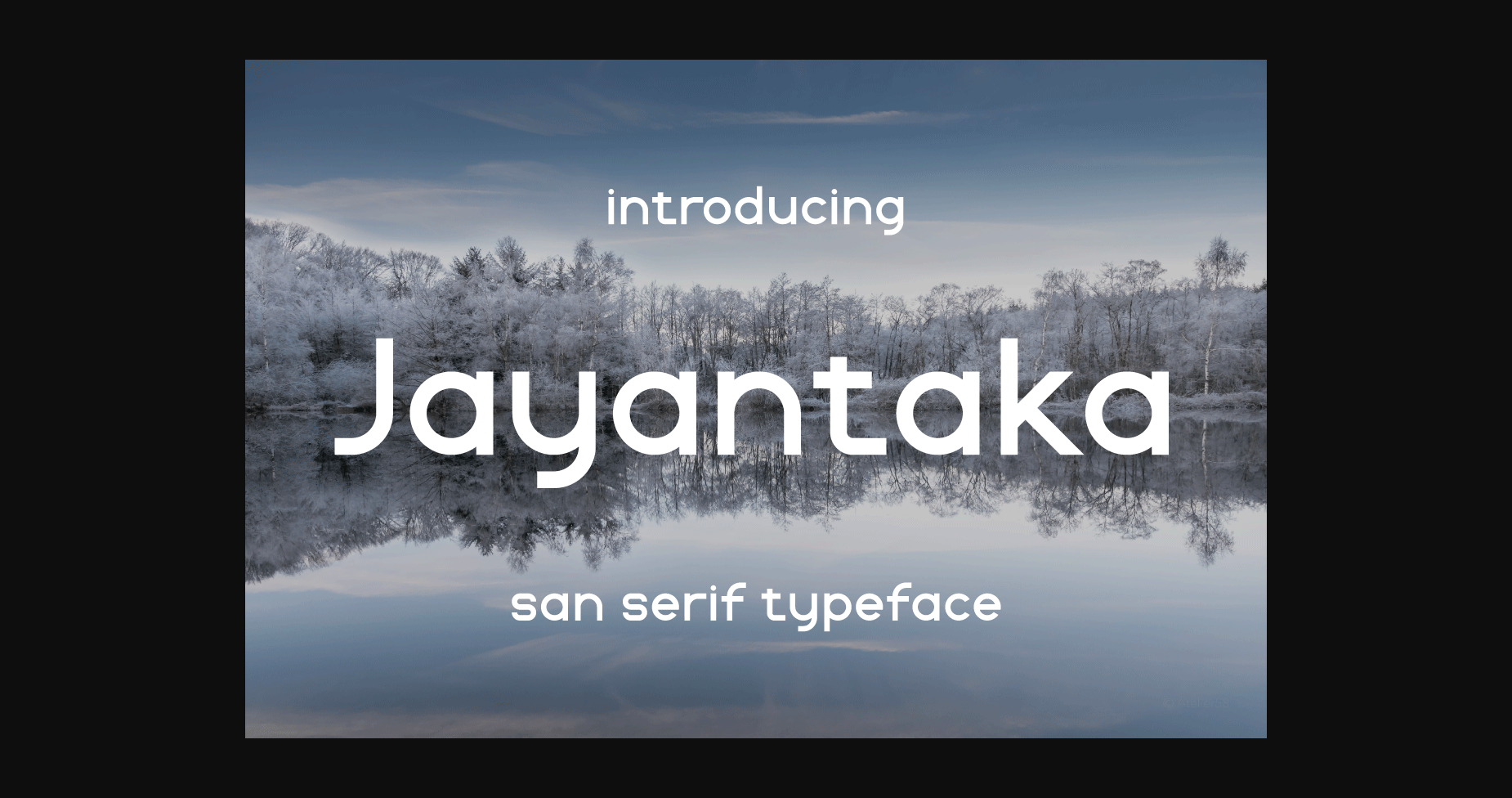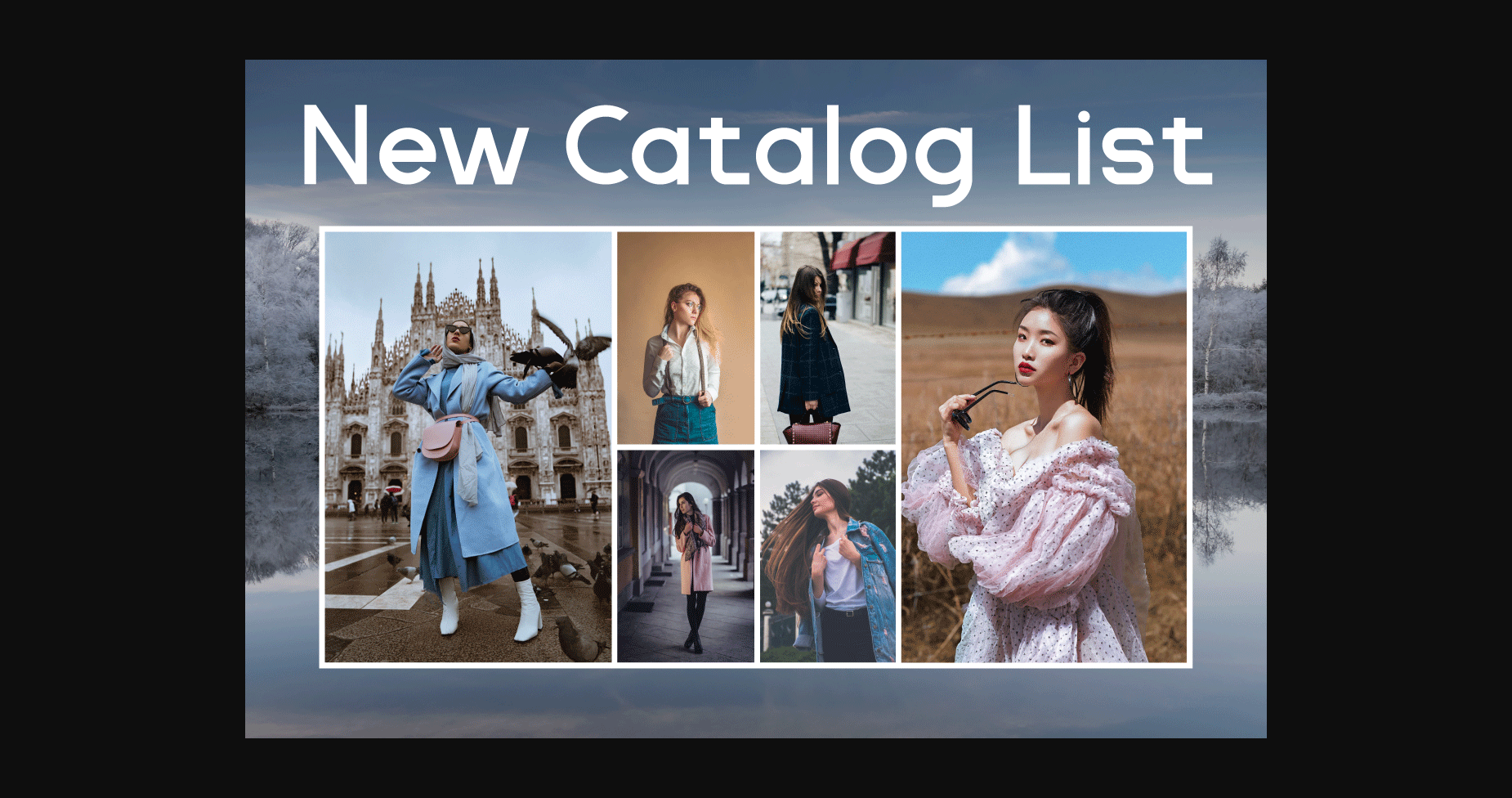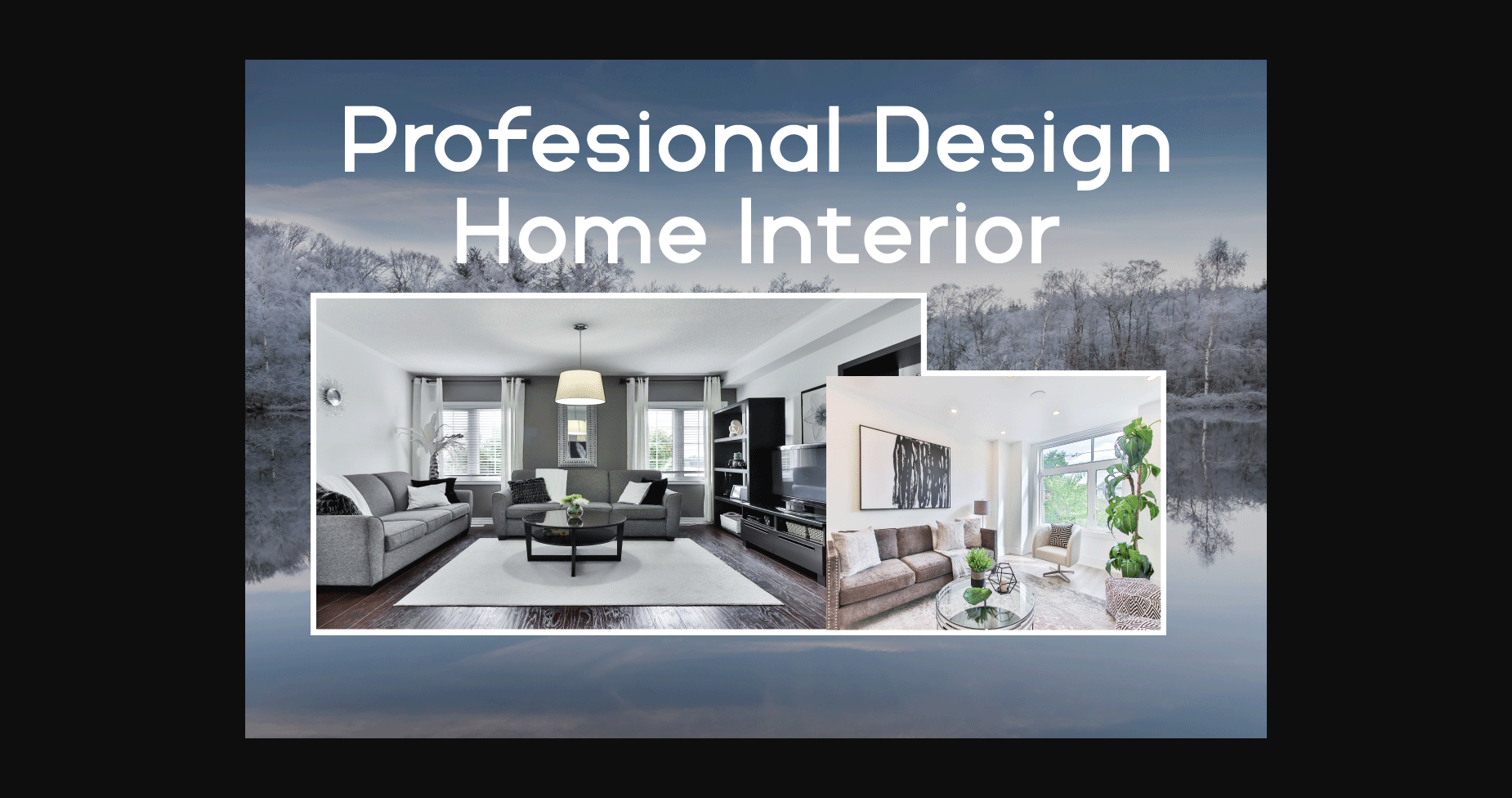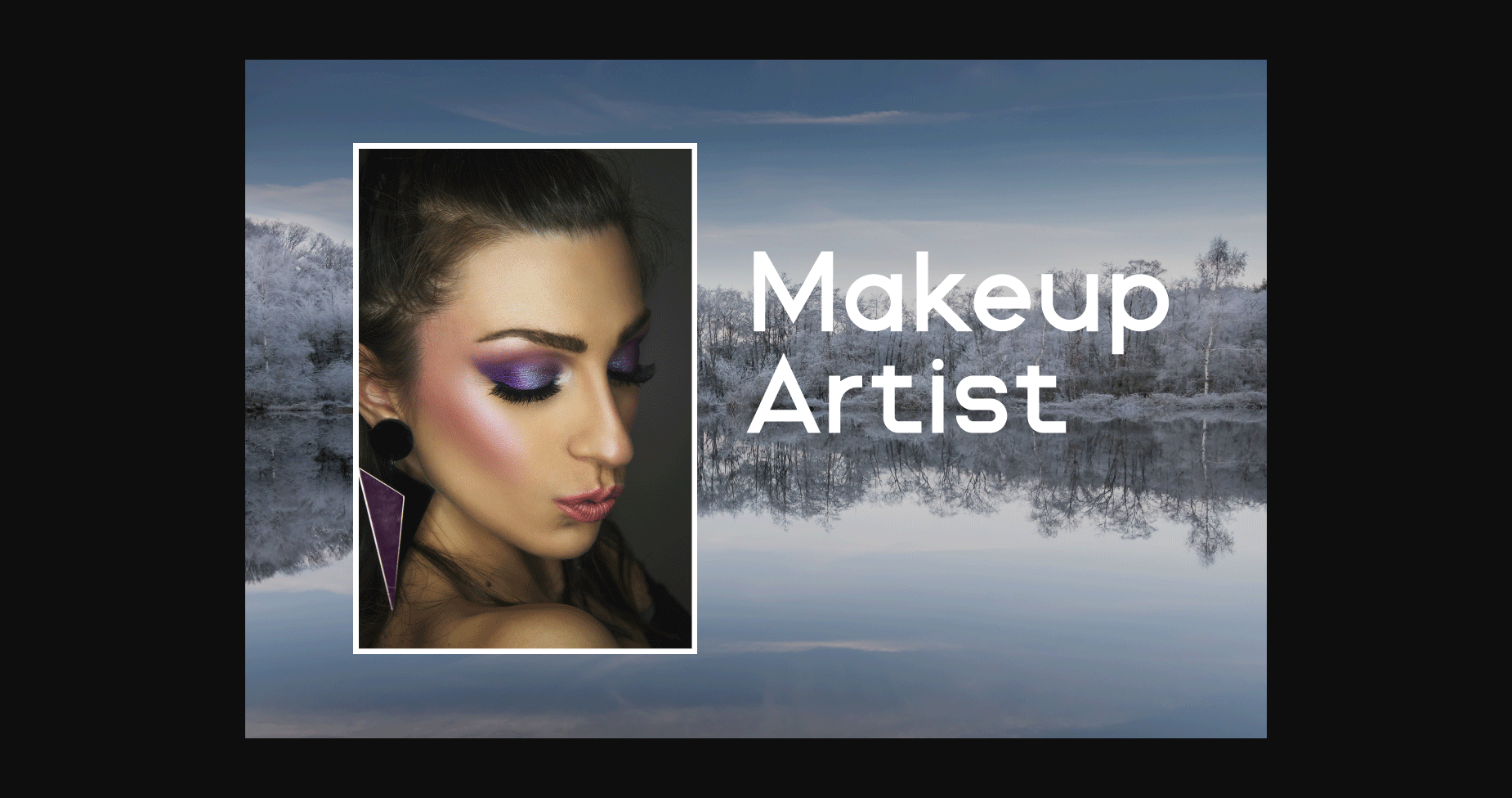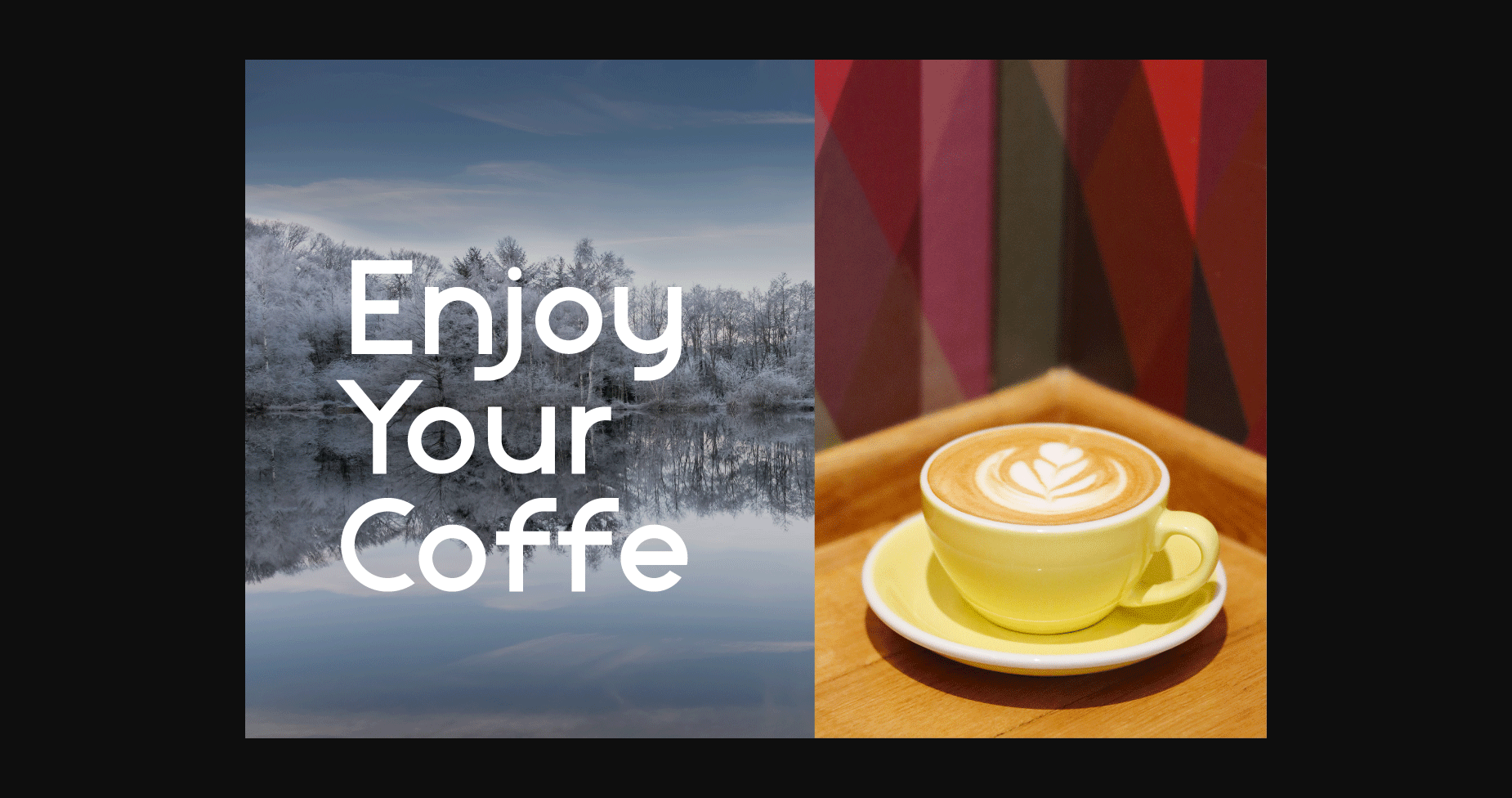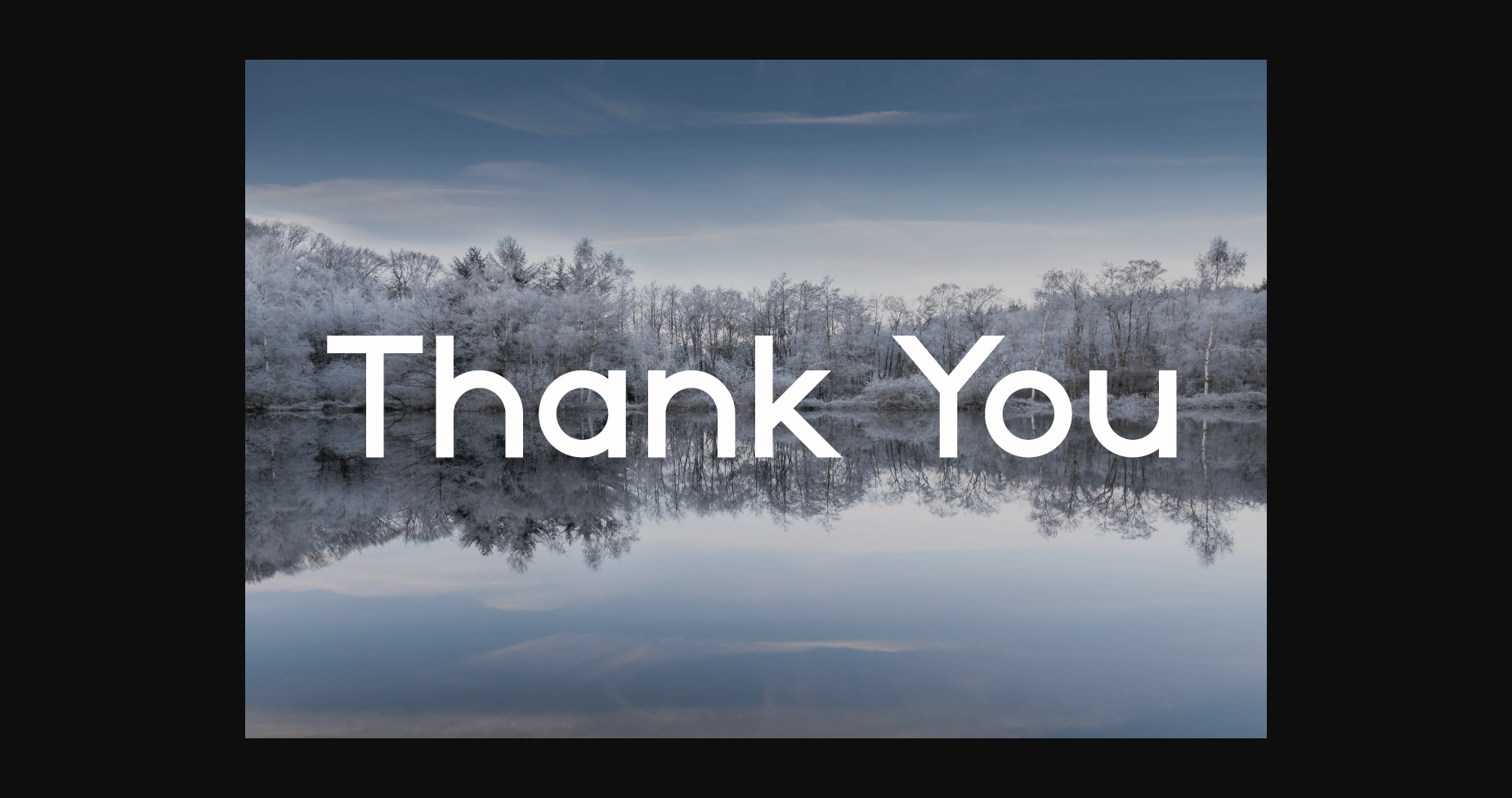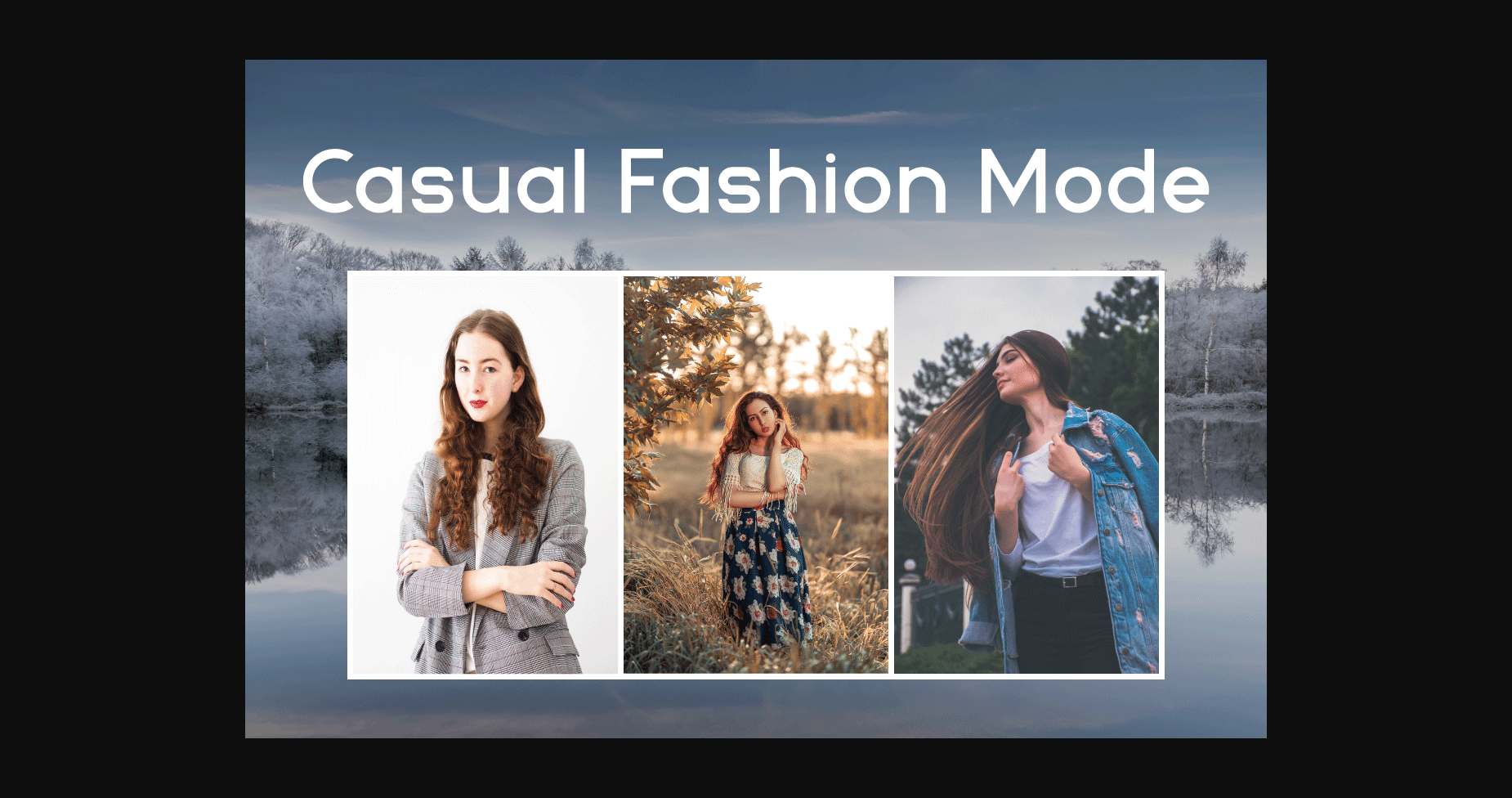
Jayantaka is an authentic and neat sans serif font. It can easily be matched to an incredibly large set of projects, so add it to your creative ideas and notice how it makes them stand out!